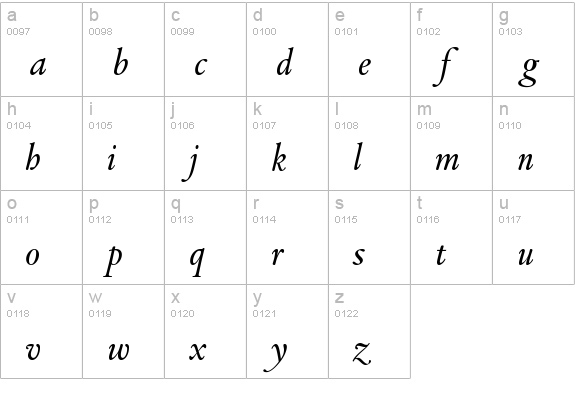
DTLVandenKeereSD-Italic Font Details
DTLVandenKeereSD-Italic is a distinctive, italic variant in the DTLVandenKeereSD typeface family \xE2\x80\x94 well suited to design and typography projects.
DTLVandenKeereSD-Italic is a beautifully crafted italic font designed to add a touch of elegance and sophistication to your projects. Its stylish and modern design makes it perfect for a wide range of applications, from branding to wedding invitations. The sleek and slanted letterforms exude a sense of luxury and refinement. This font is available for free download at FontsMarket.com, making it easily accessible for designers and creatives looking to elevate their work with a touch of class. Whether you're working on a personal project or a client's design, DTLVandenKeereSD-Italic is sure to impress with its distinctive and eye-catching appearance. Add a touch of flair to your typography with this stunning font today!